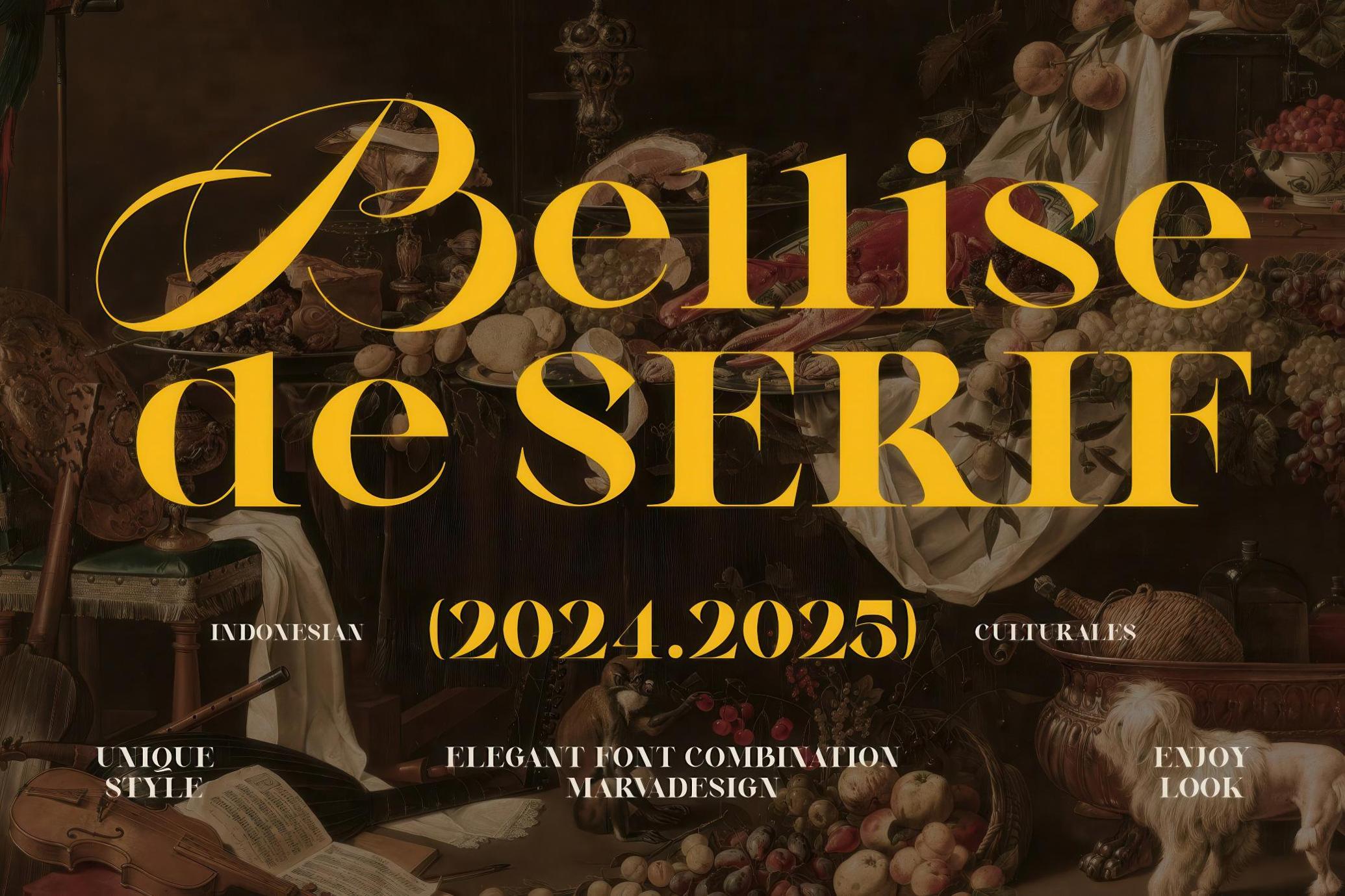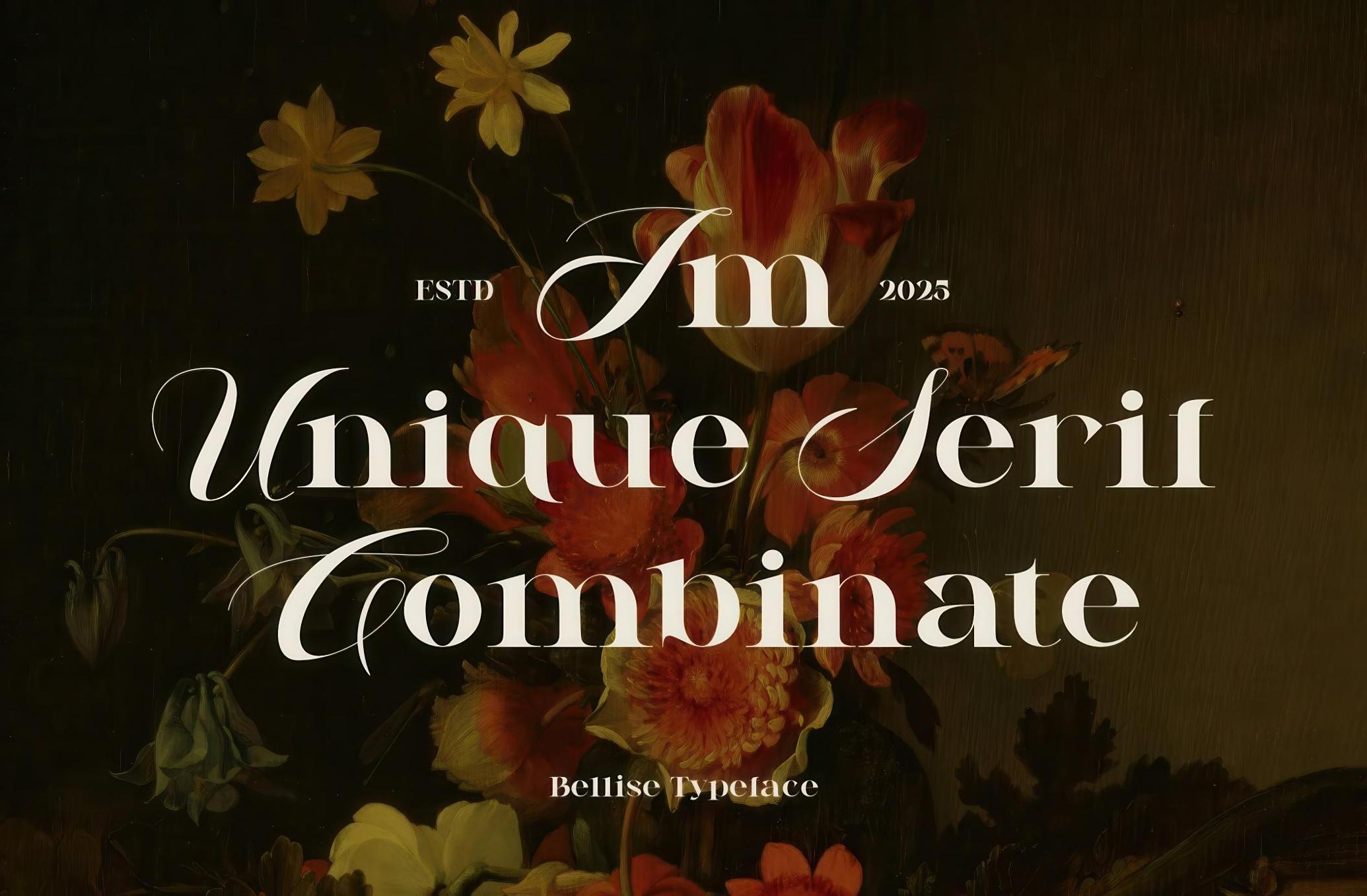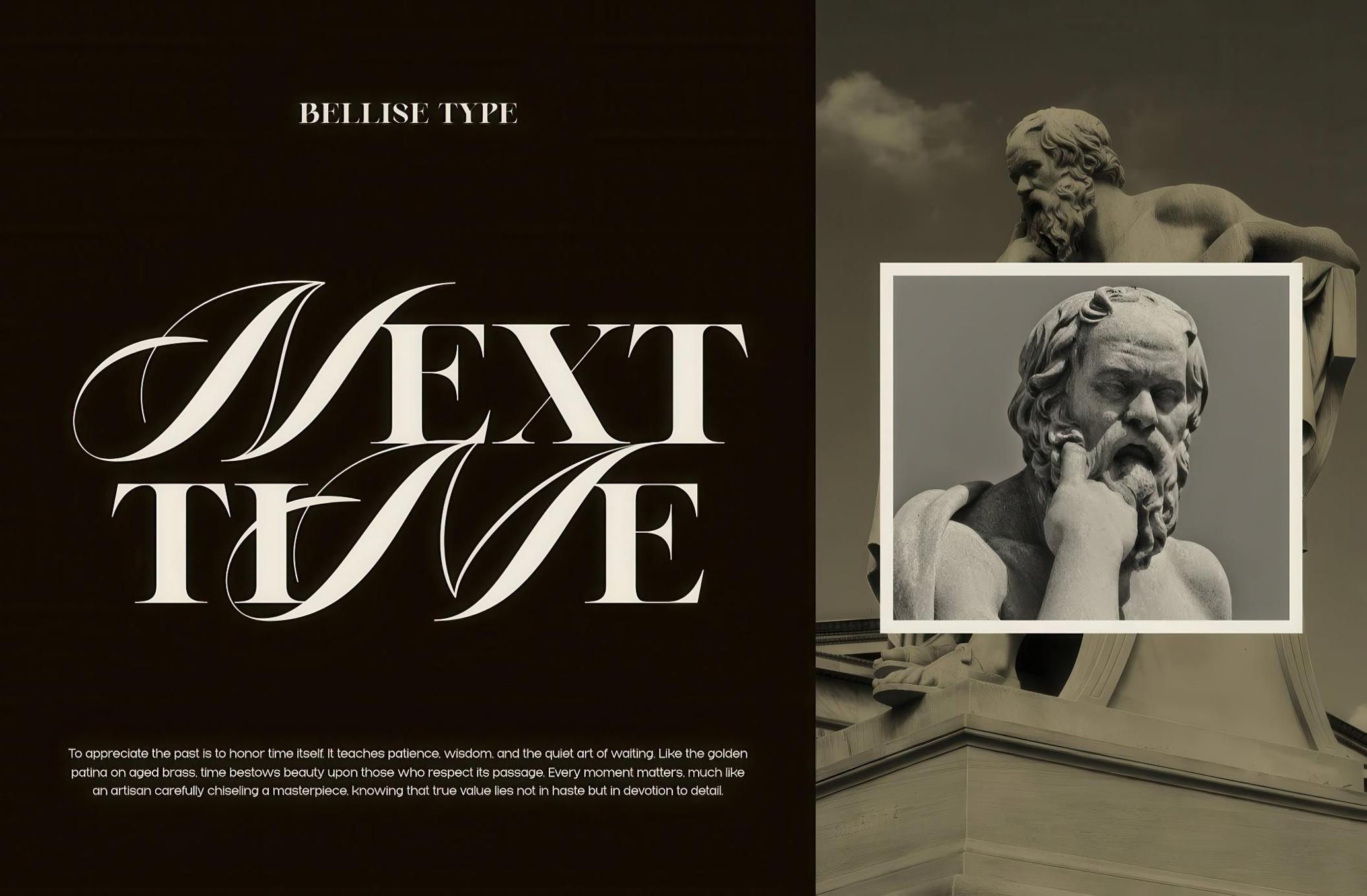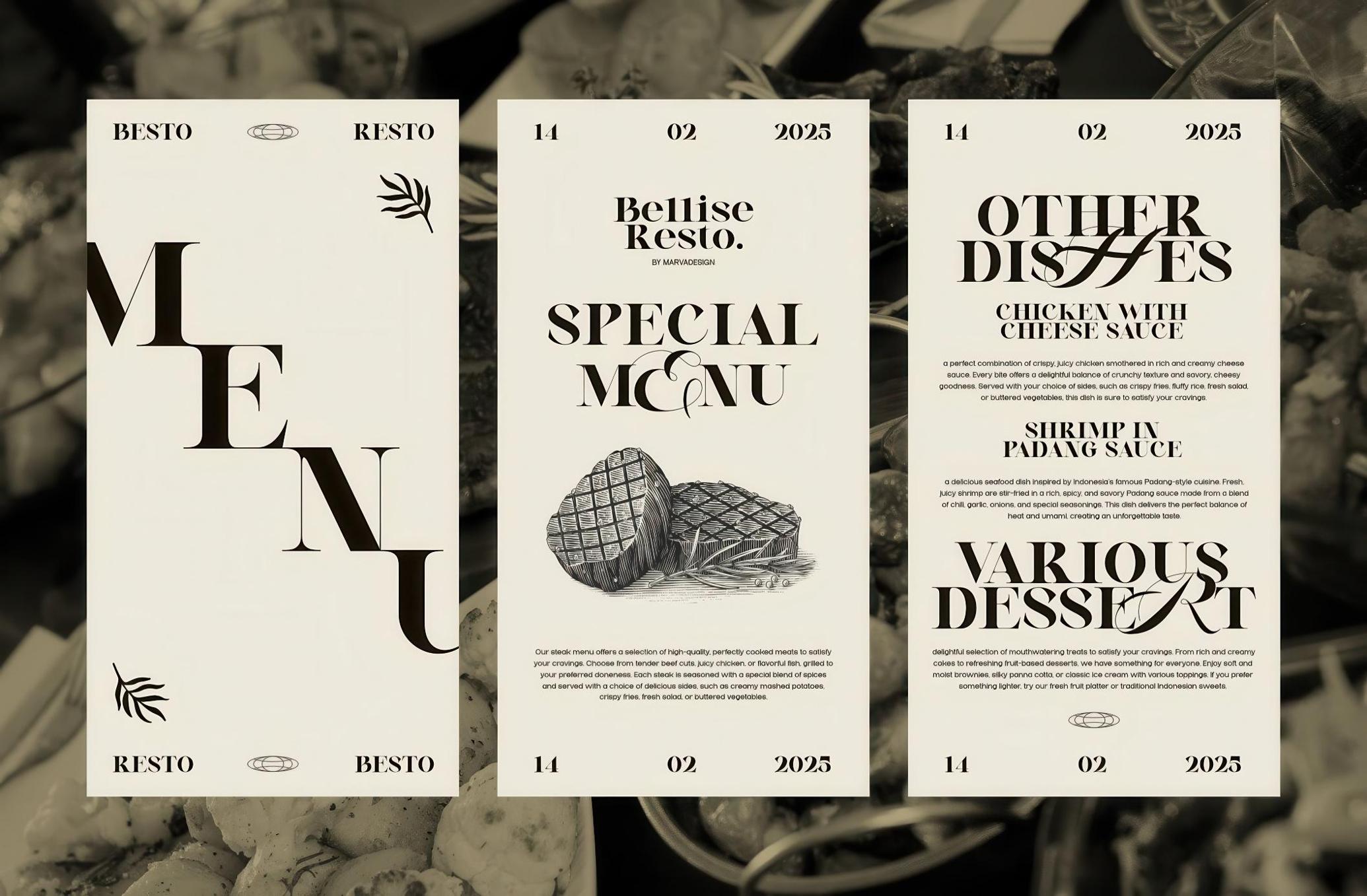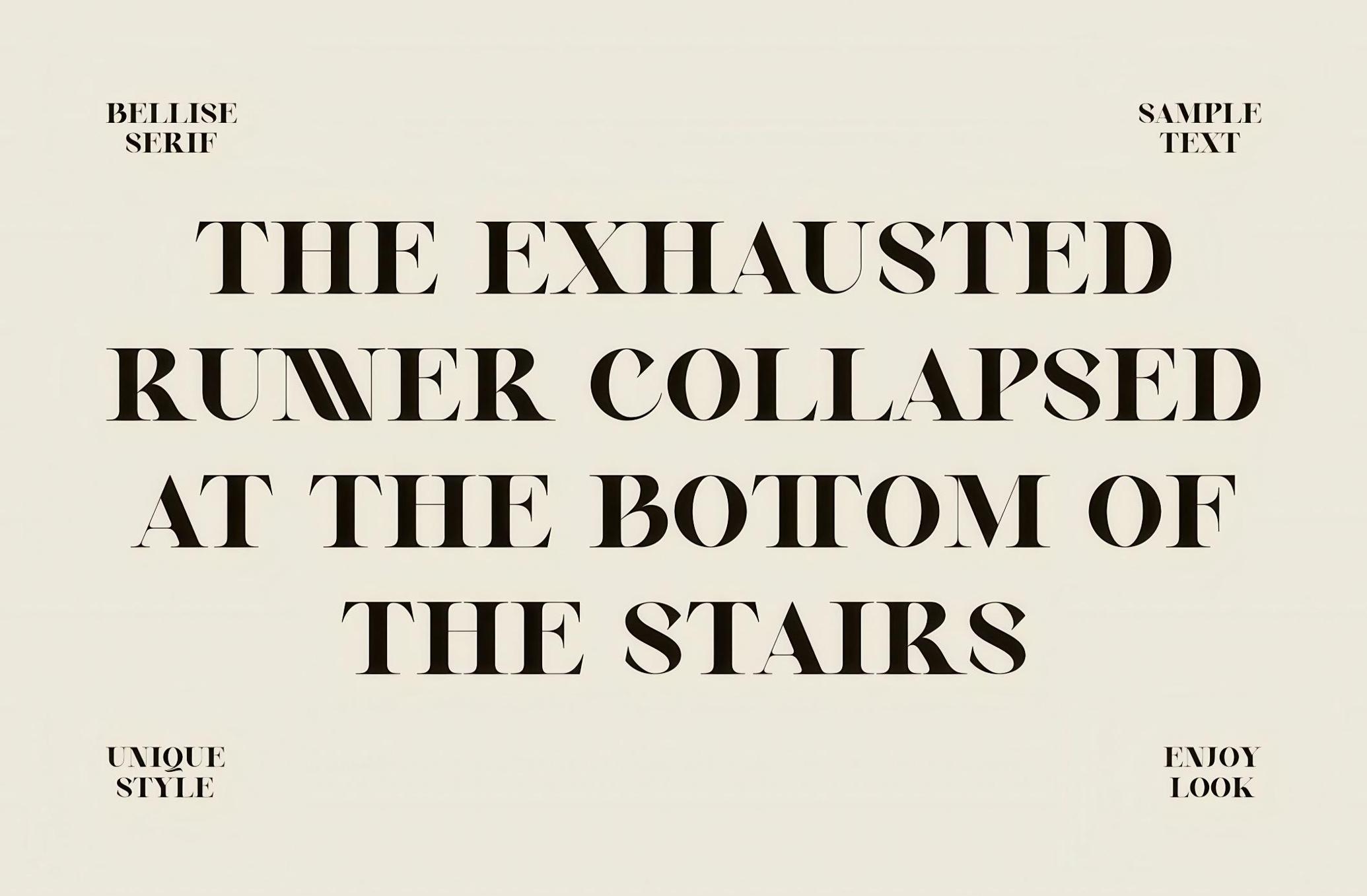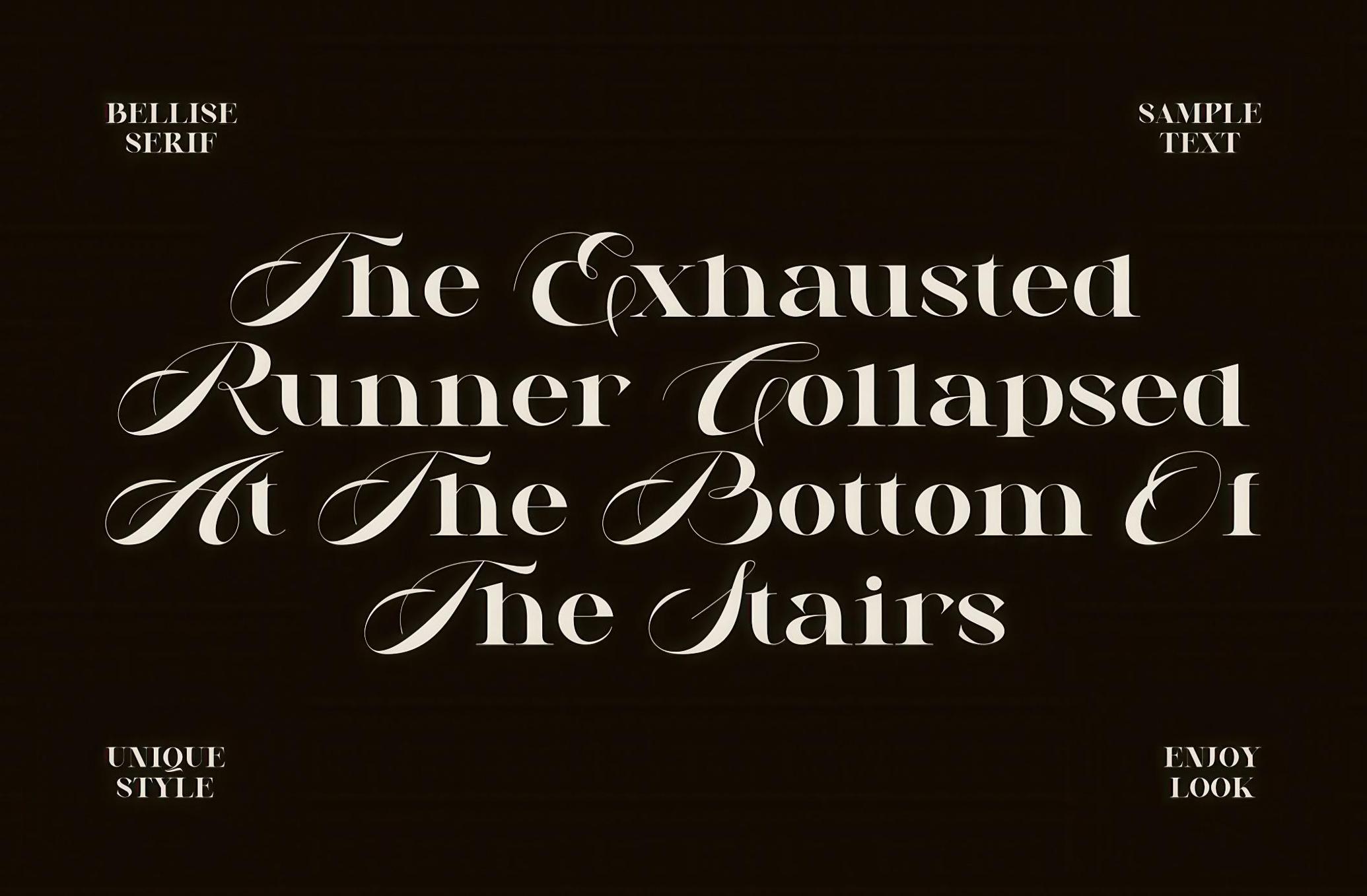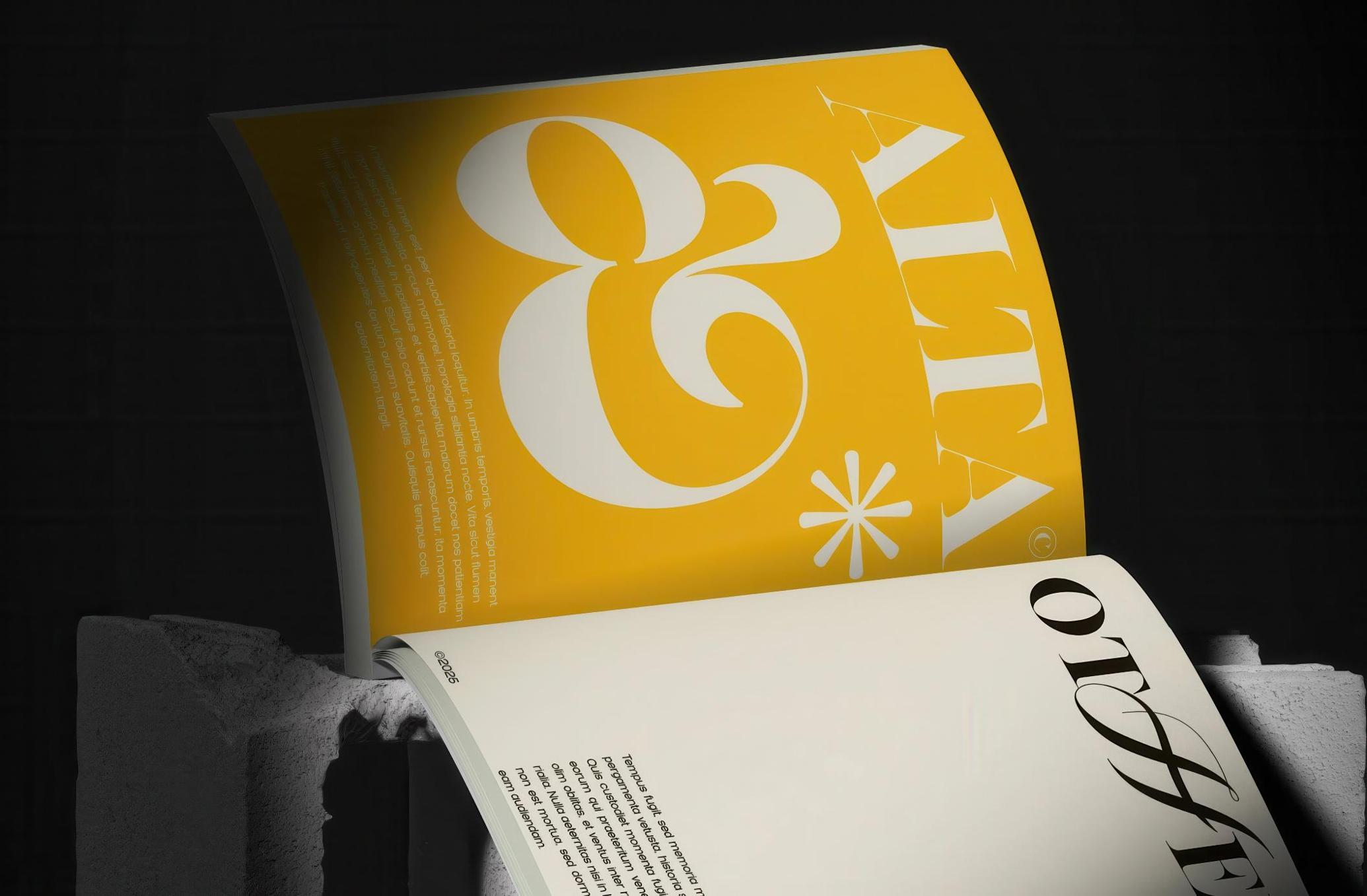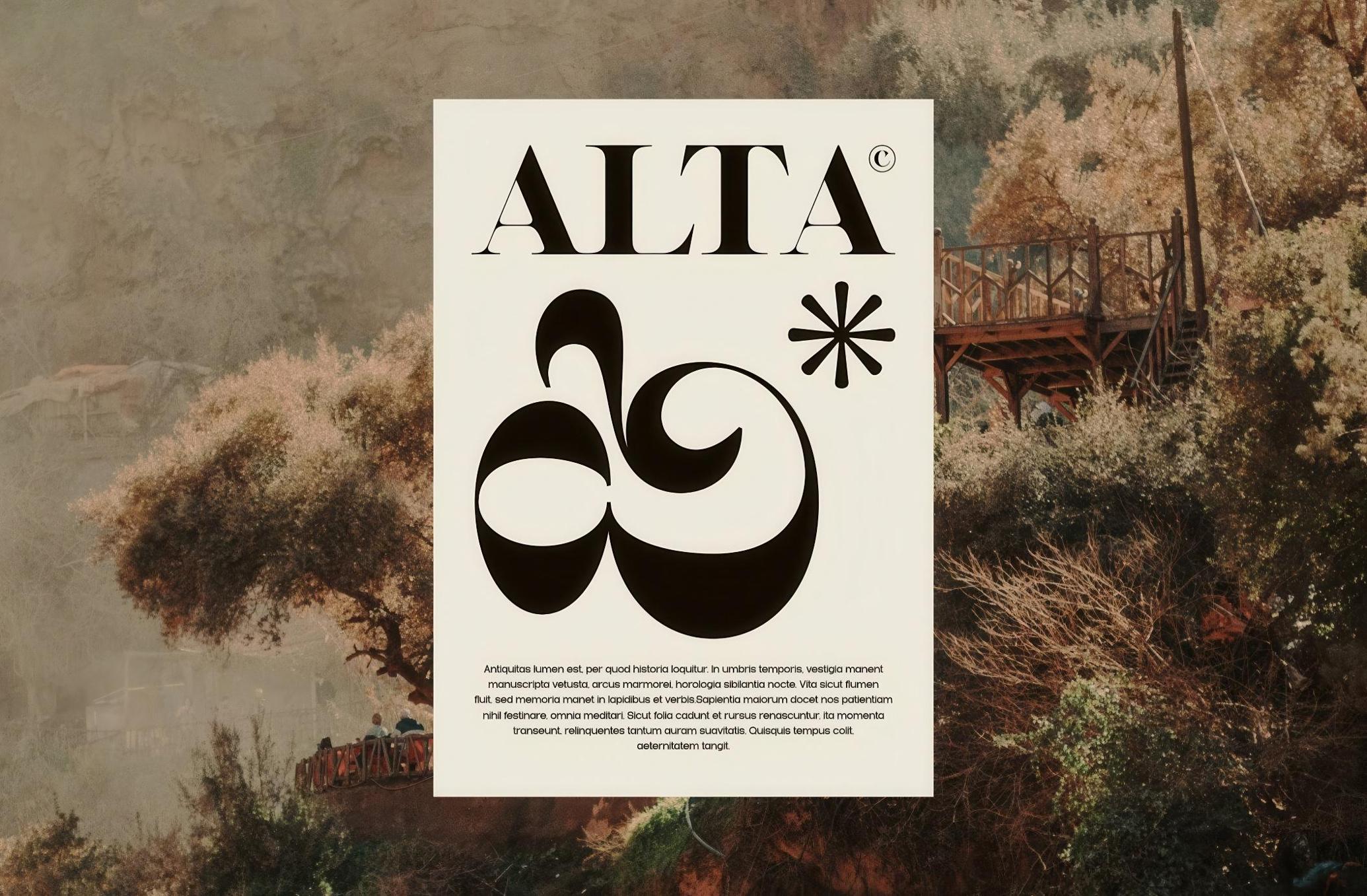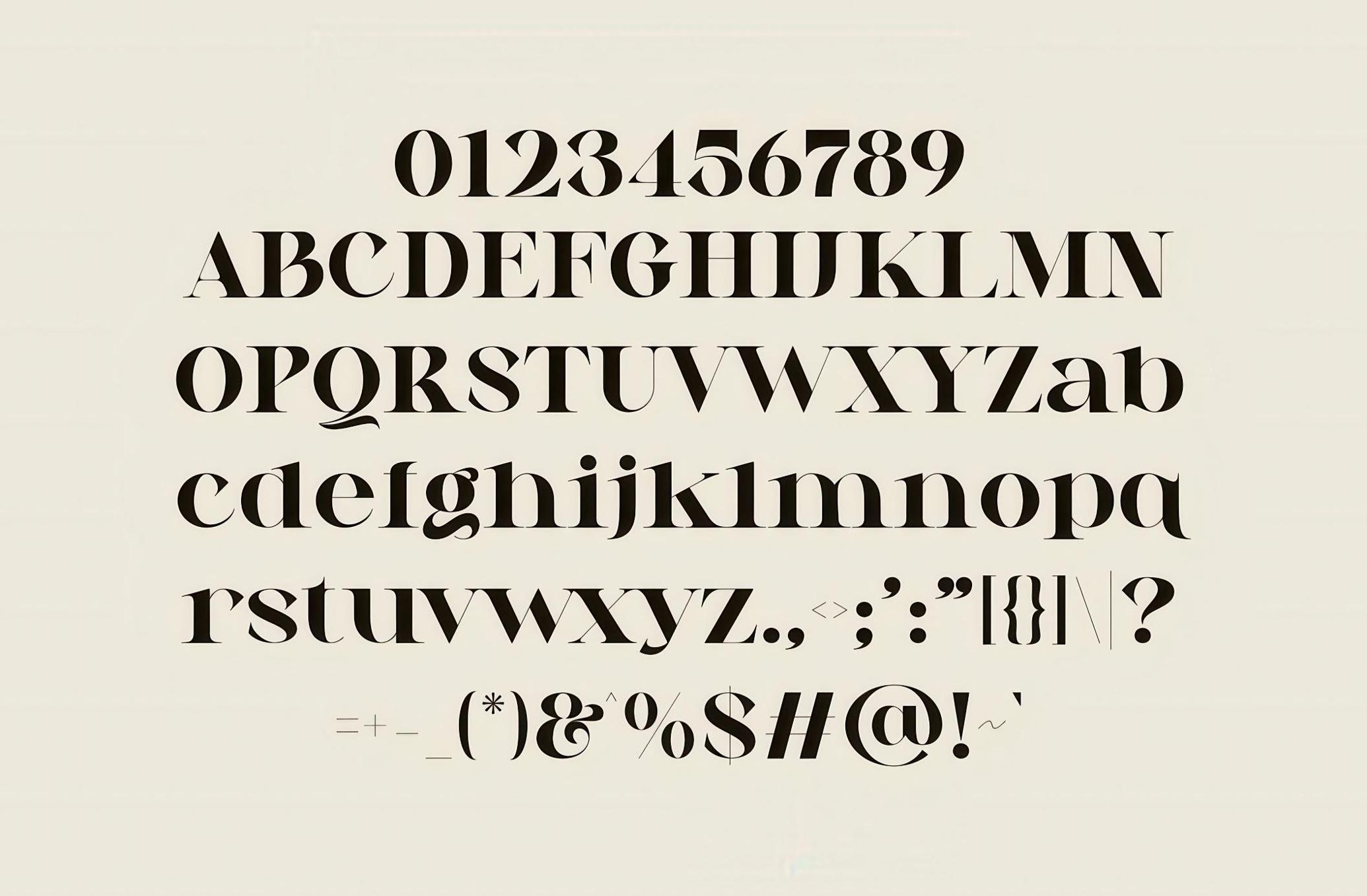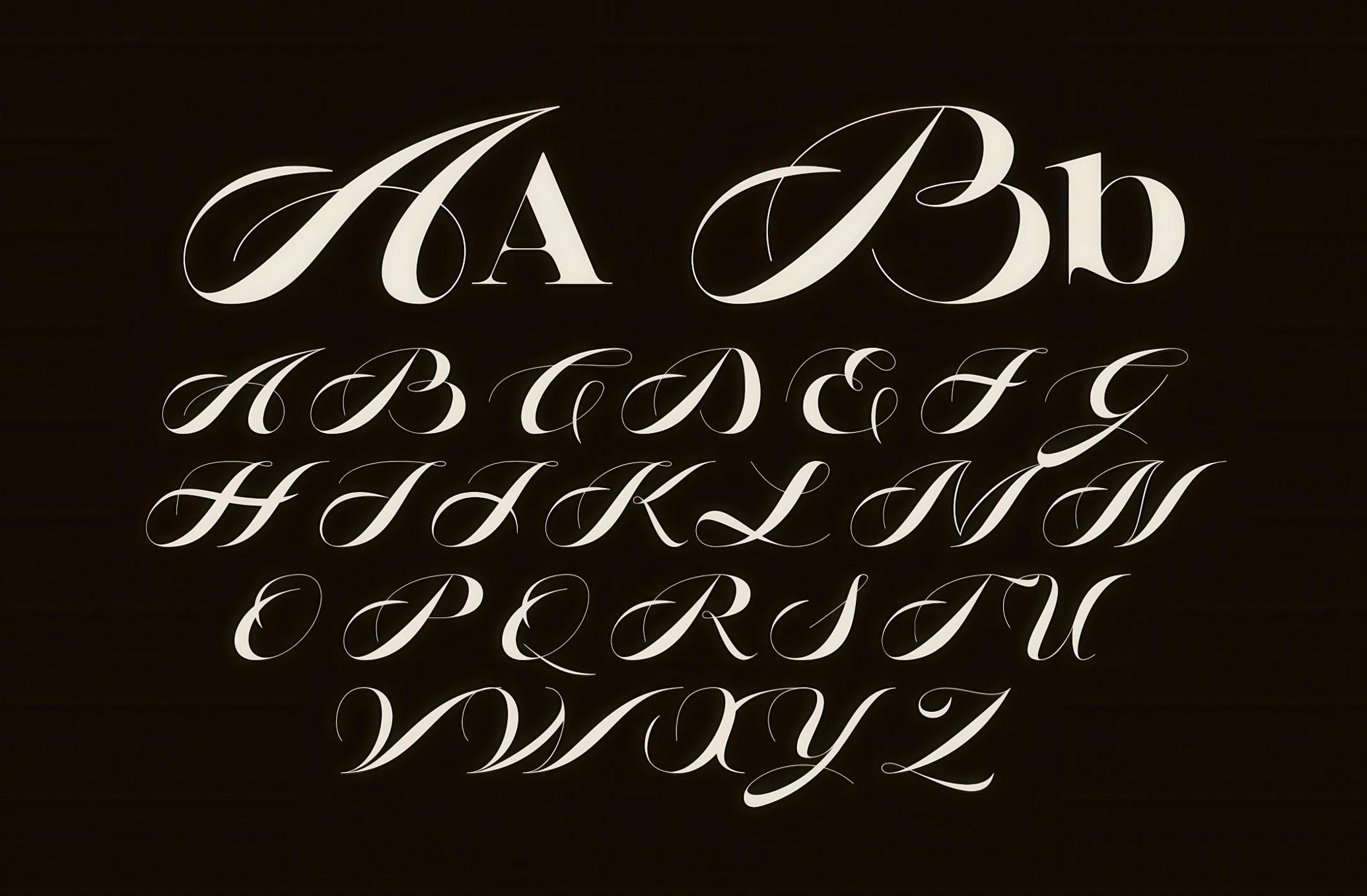
Bellise de Serif Font
Bellise de Serif reads like an heirloom still life — each letterform poised like a gilded goblet, a string instrument, or a single piece of ripened fruit. Echoing the richness of 17th-century Flemish painting, this typeface captures that same chiaroscuro contrast between structure and flourish. The serif base grounds it in classical gravitas, while the sweeping uppercase alternates pirouette across the baseline with the confidence of a signature on parchment.
Bellise is crafted for luxury branding, fashion editorials, and elegant packaging. The refined ligatures, high-contrast strokes, and sculptural proportions offer visual rhythm and ornament without excess. Available with multilingual support and stylistic alternates, it invites you to compose layouts as evocative as a vanitas canvas.